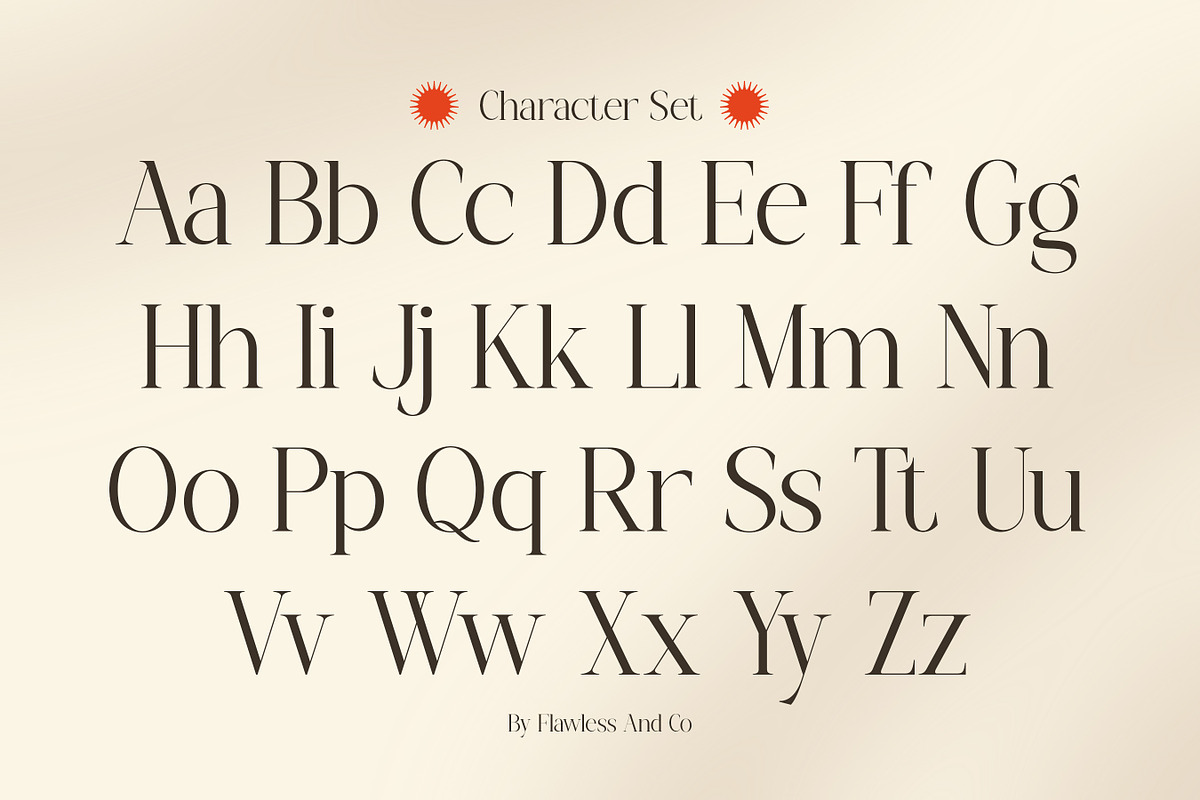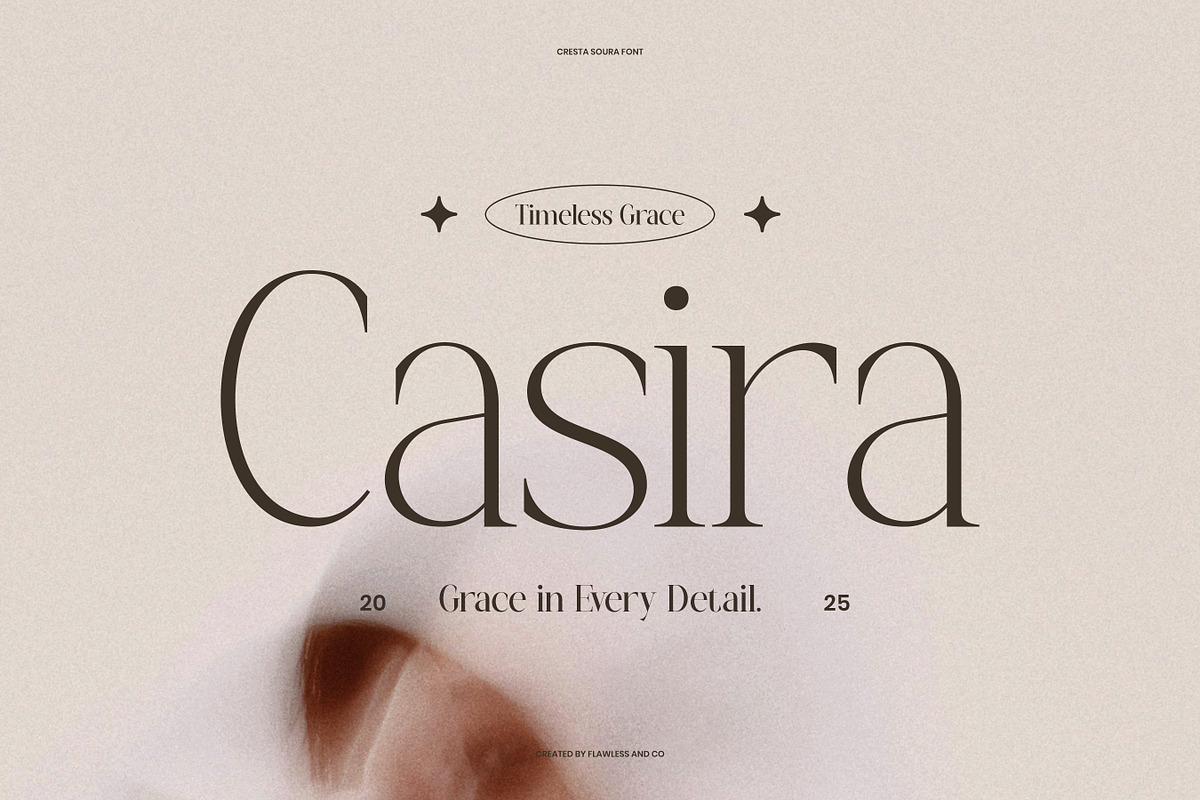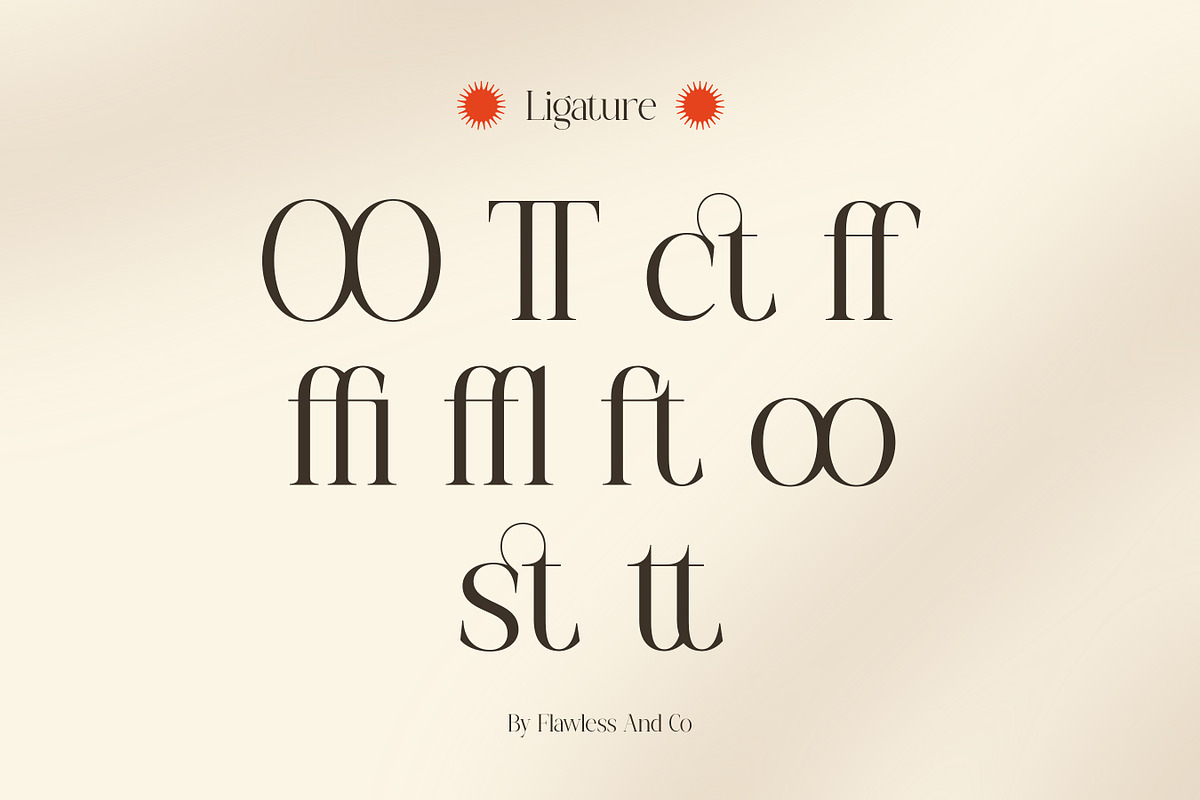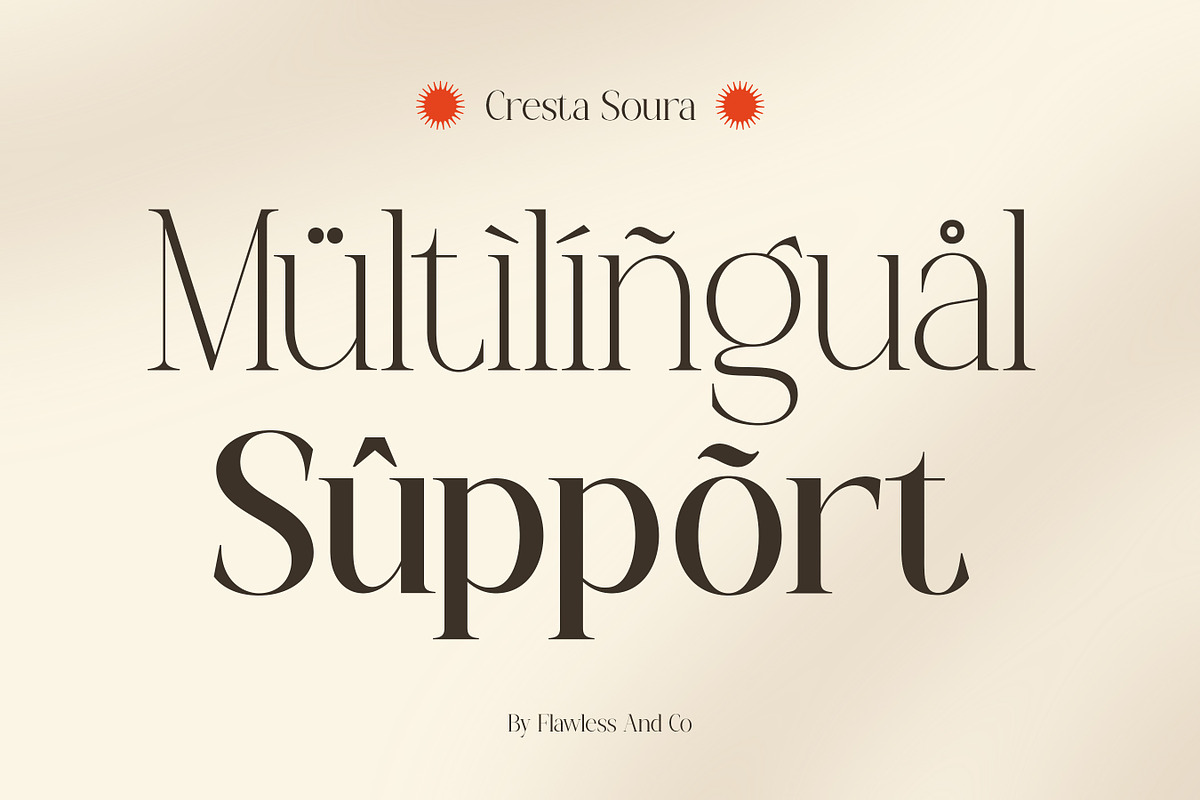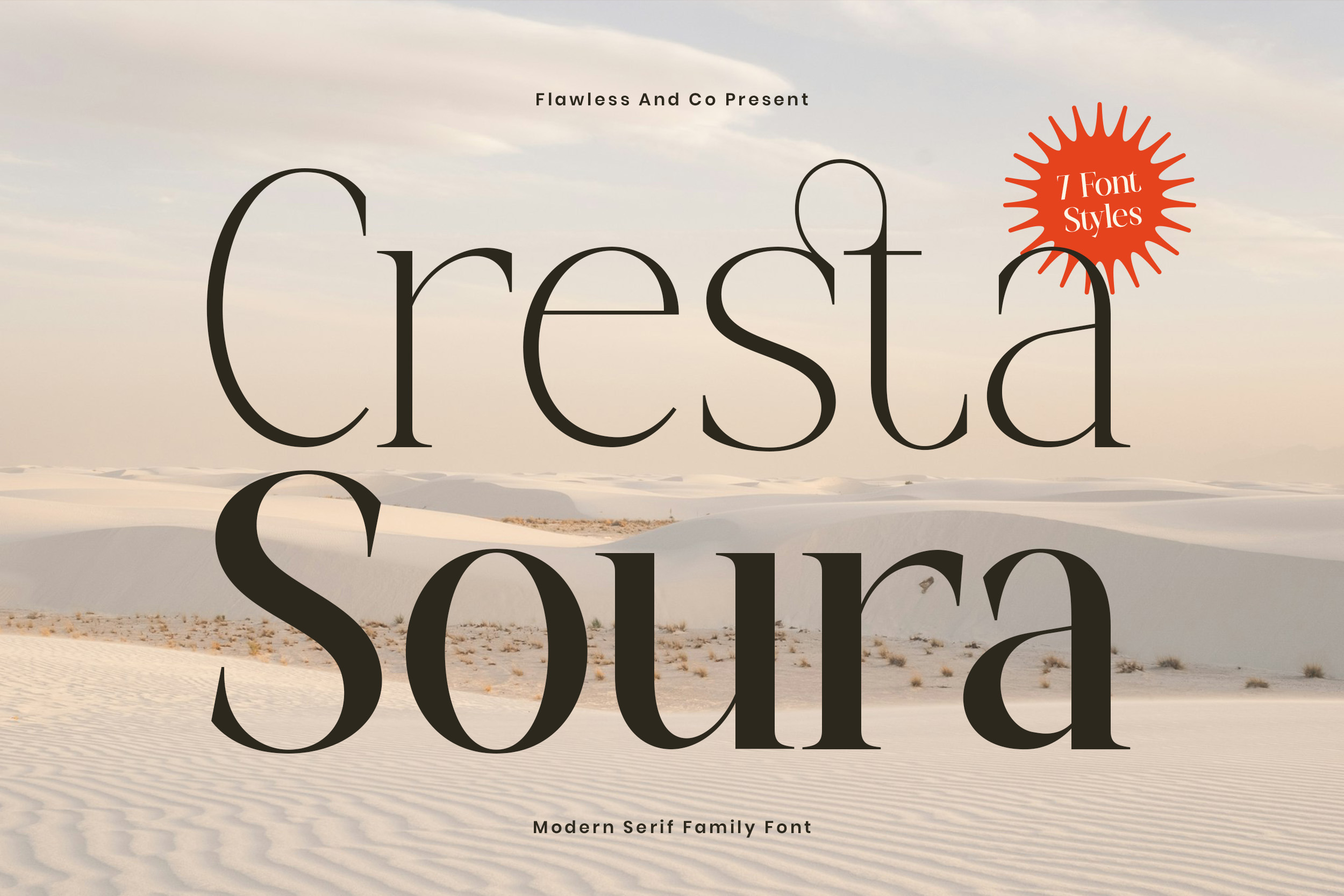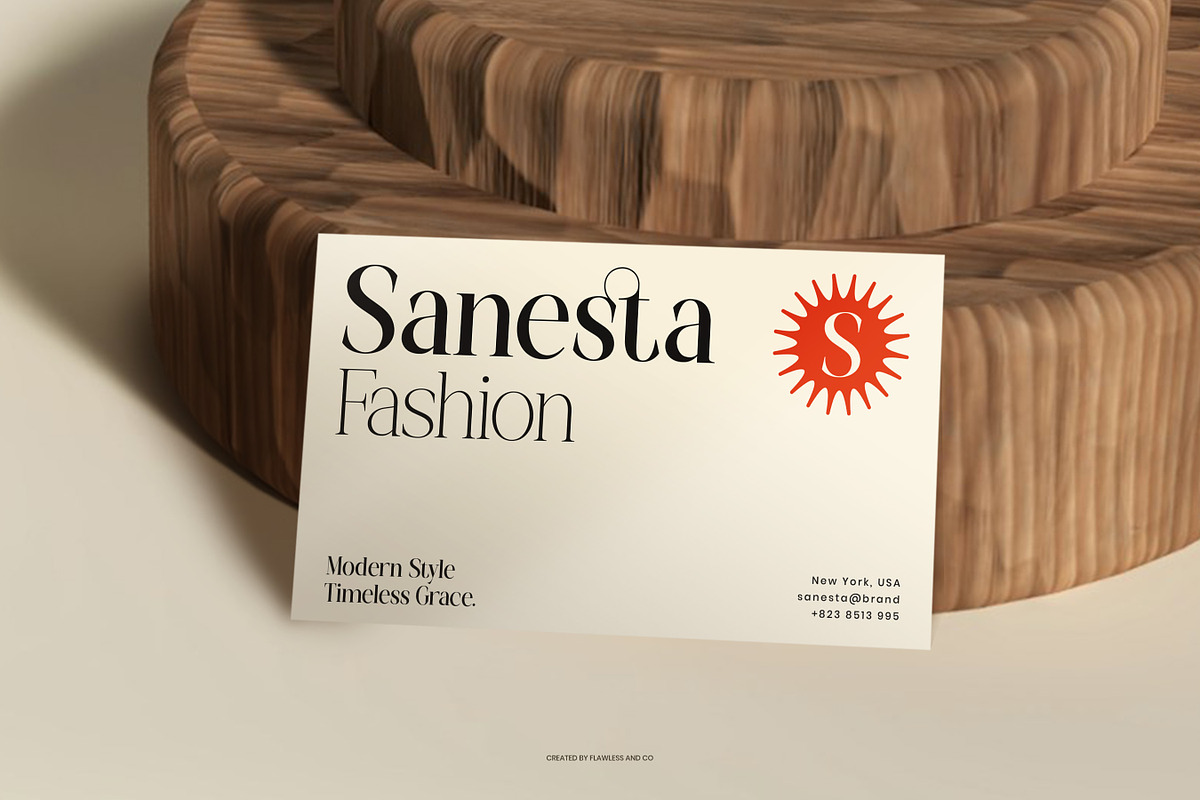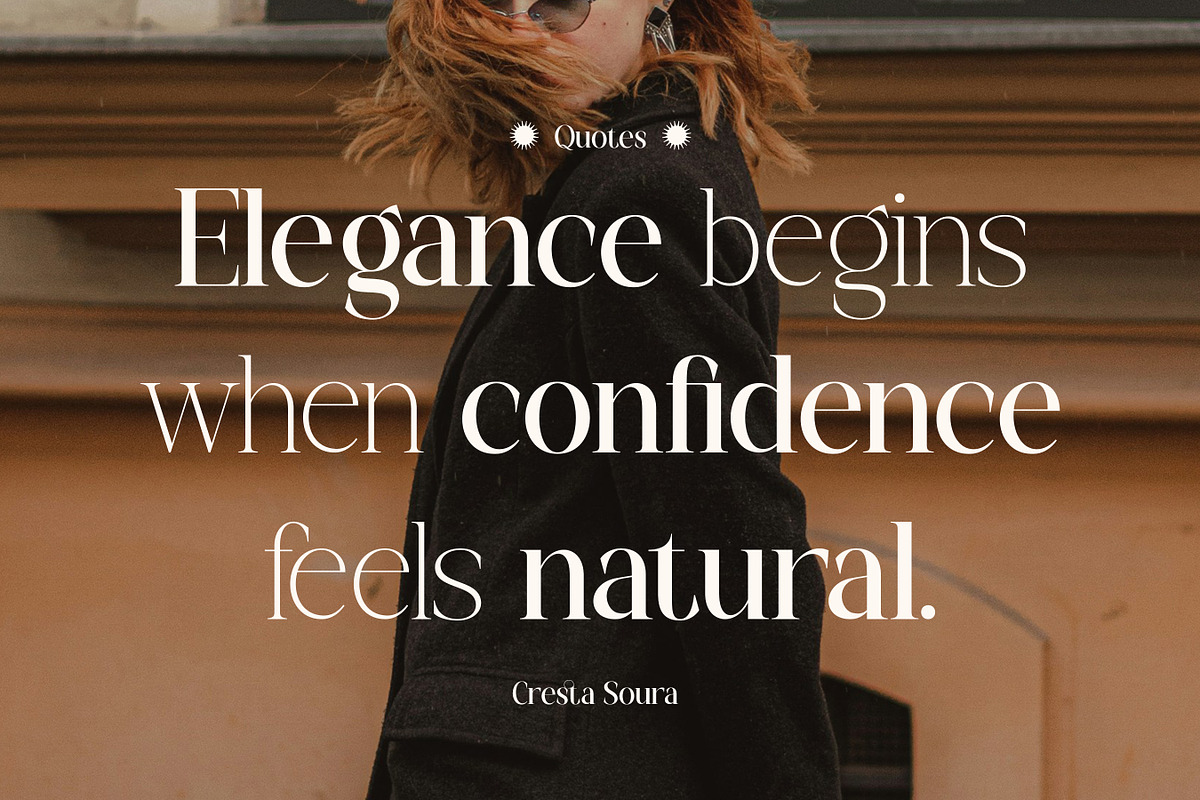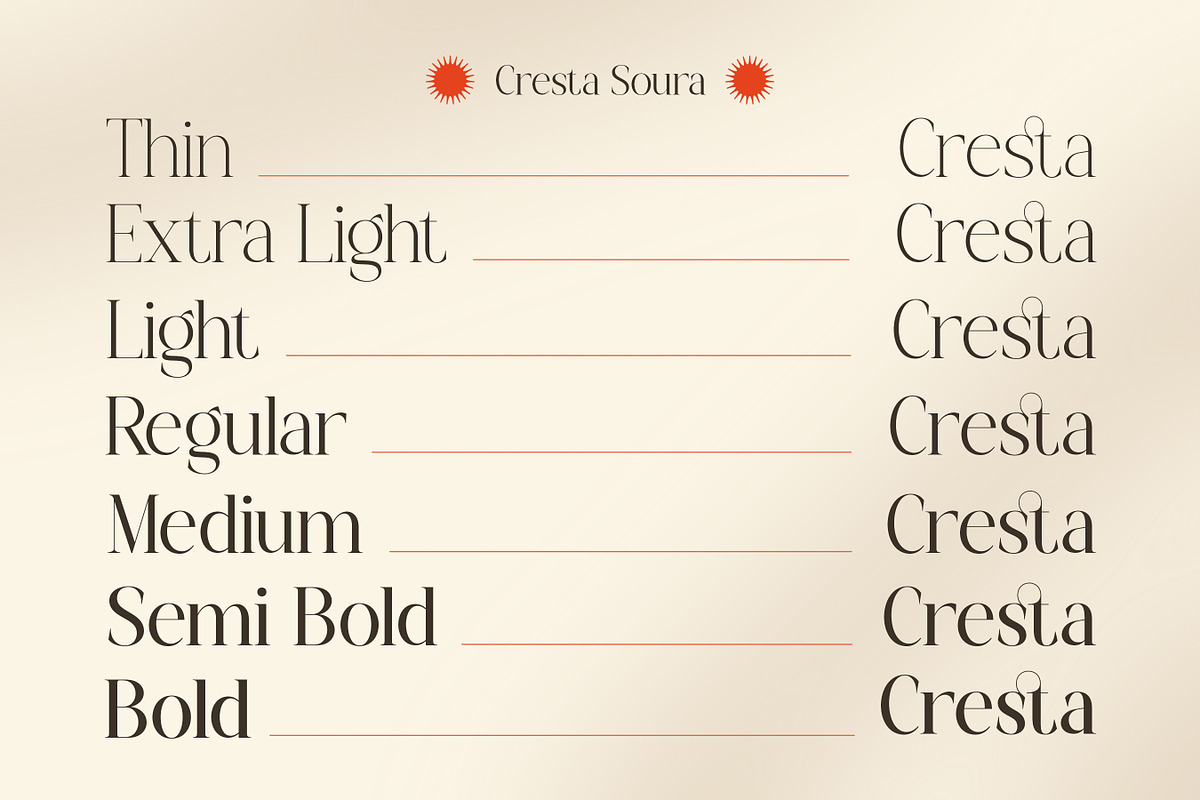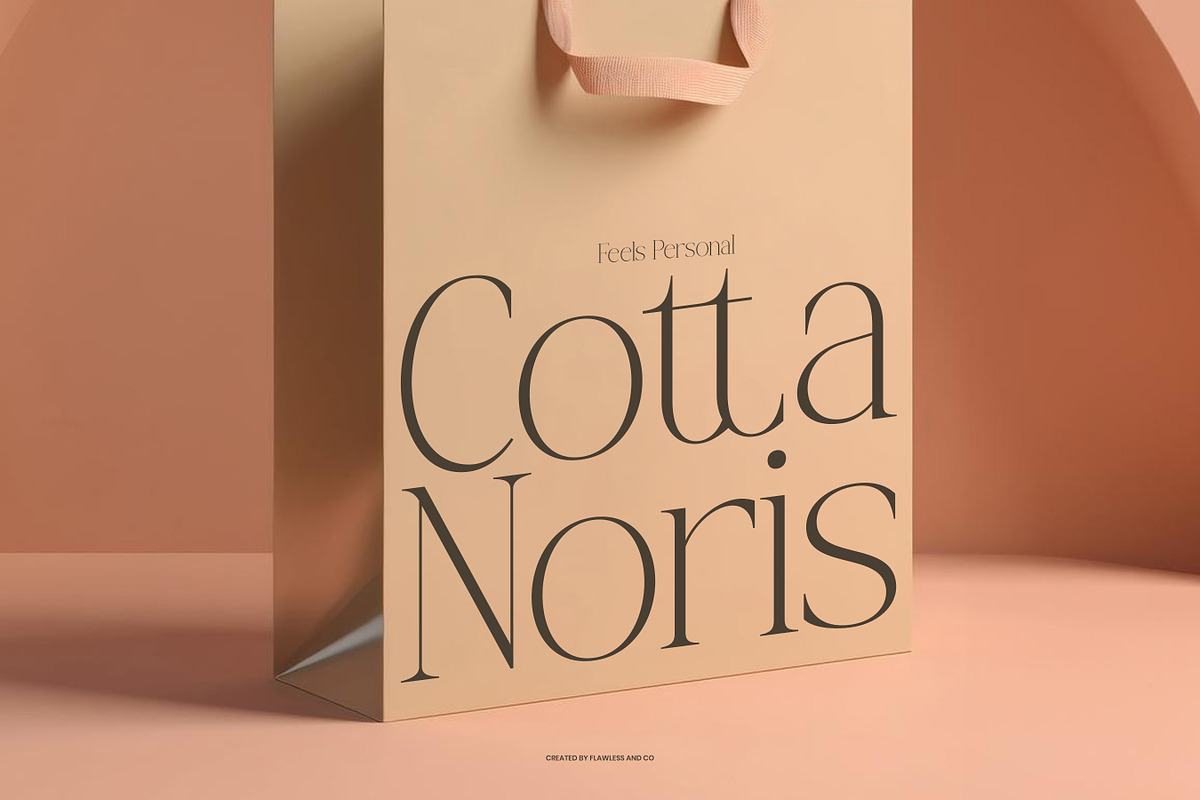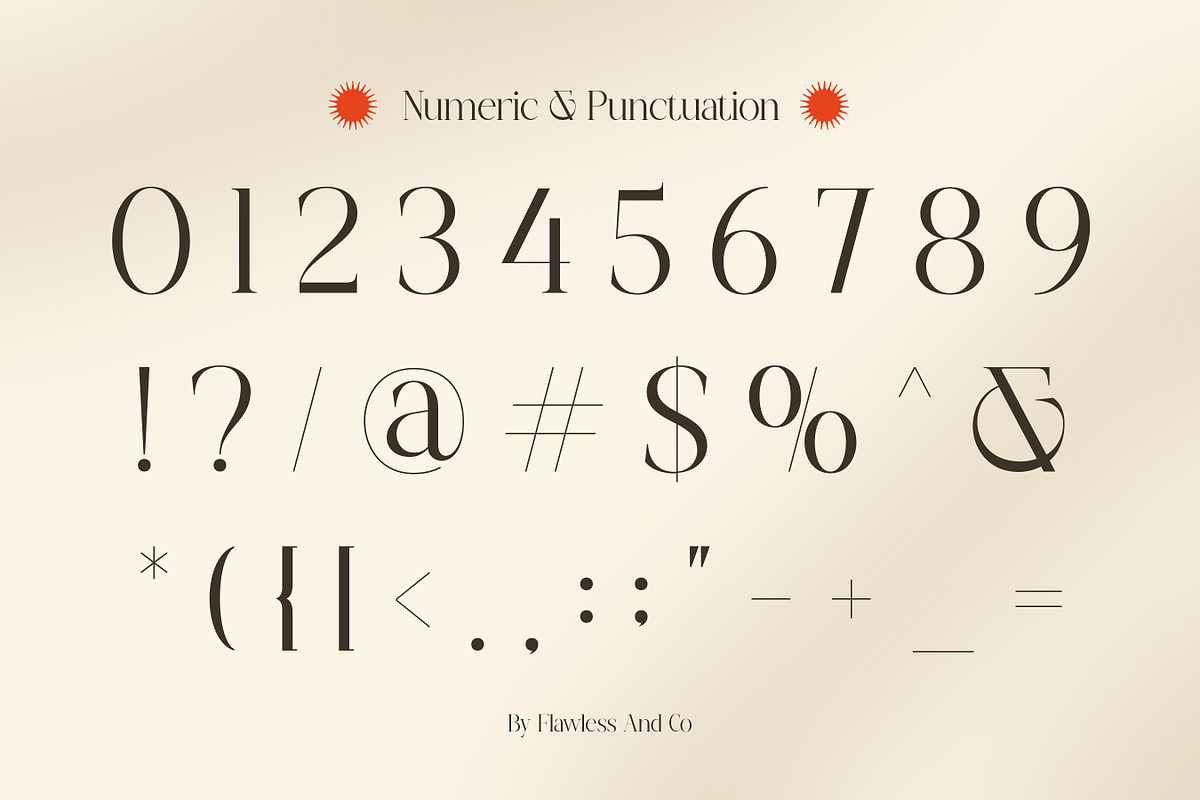
Cresta Soura - Serif Family Font
Cresta Soura is a modern serif family font designed with refined elegance and confident character. Featuring smooth curves, sharp contrasts, and graceful letterforms, Cresta Soura delivers a sophisticated look that feels contemporary yet timeless. Its carefully crafted shapes make it versatile for both bold headlines and elegant body text.
Why Choose Cresta Soura?
Cresta Soura offers flexibility, elegance, and strong aesthetic value in one complete font family. It’s ideal for projects that require a modern serif with character, clarity, and timeless appeal.
Suitable For
- Branding and logo design
- Editorial and magazine layouts
- Luxury and fashion branding
- Packaging and product design
- Website and digital content
- Advertising and creative projects
- Print and modern typography systems